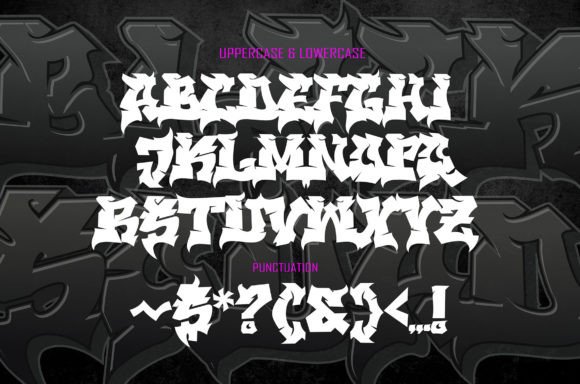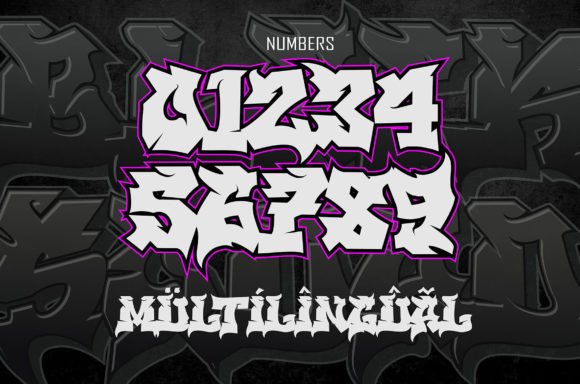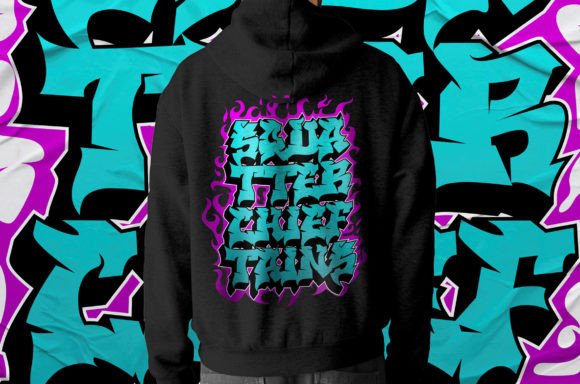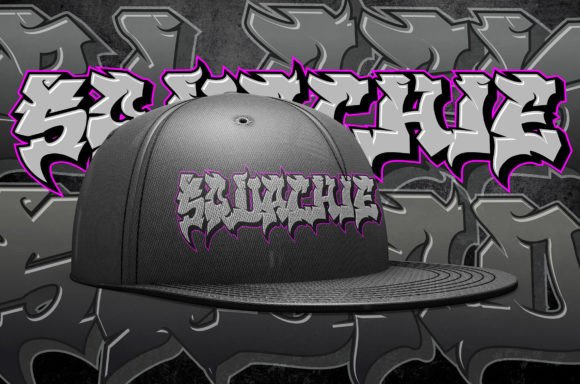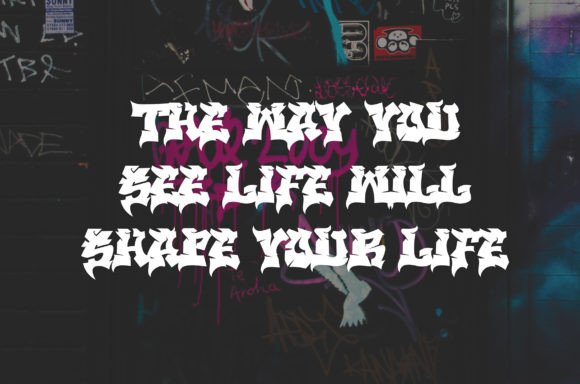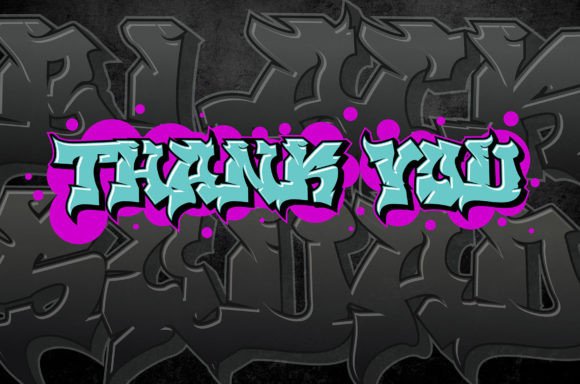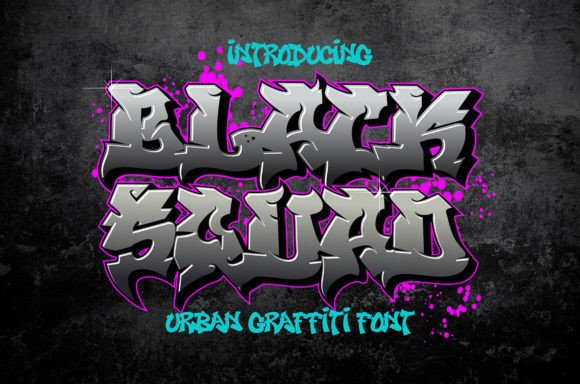
The Urban Edge of Typography: Unleashing the Power of Black Squad Font
I’ll never forget the time I was working on a project for a local music festival, and I just couldn’t seem to find the right font to capture the edgy, urban vibe of the event. The client wanted something bold, something that would grab attention and scream “streetwear.” That’s when I stumbled upon Black Squad Font – a game-changer for any designer looking to add a touch of grit to their work.
Black Squad is an urban graffiti font that embodies the raw energy of the streets. Characterized by sharp edges and a bold look, this font is perfect for music posters, apparel designs, shirts, and streetwear. Its unique style makes it an ideal choice for death metal or urban graffiti themes, allowing you to create a strong and powerful statement or simply add a touch of attitude to your designs.
• ✅ Bold and Edgy: Black Squad Font is perfect for making a statement with your designs. Its sharp edges and bold look instantly add an urban touch to any project.
• ✅ Versatile: Whether you’re working on music posters, apparel designs, or streetwear, this font adapts seamlessly to different mediums and themes.
• ✅ Easy to Read: Despite its bold nature, Black Squad Font remains surprisingly legible, making it suitable for both headlines and body text.
• ⚠️ Limited to Bold Styles: If you’re looking for a font with multiple weights or styles, Black Squad might not be the best fit. It’s primarily designed for bold, impactful use.
• ⚠️ Glyph Limitations: While Black Squad offers a range of glyphs and OpenType features, it might not have every special character or symbol you need. Be sure to test it thoroughly for your specific project requirements.
The Inspiration Behind Black Squad Font
Black Squad Font was born out of a passion for urban culture and graffiti art. Its creator, inspired by the raw energy of city streets, aimed to capture the essence of rebellion and self-expression in a single font. The result is a typeface that embodies the spirit of urban creativity and attitude.
Q: Is Black Squad Font suitable for body text?
A: While Black Squad Font is primarily designed for headlines and bold statements, it can be used for body text in certain contexts. However, its bold nature might make it less readable for extended passages.
Q: Does Black Squad Font support OpenType features?
A: Yes, Black Squad Font offers a range of OpenType features, including glyphs and stylistic alternates. Experiment with these features to add variety and creativity to your designs.